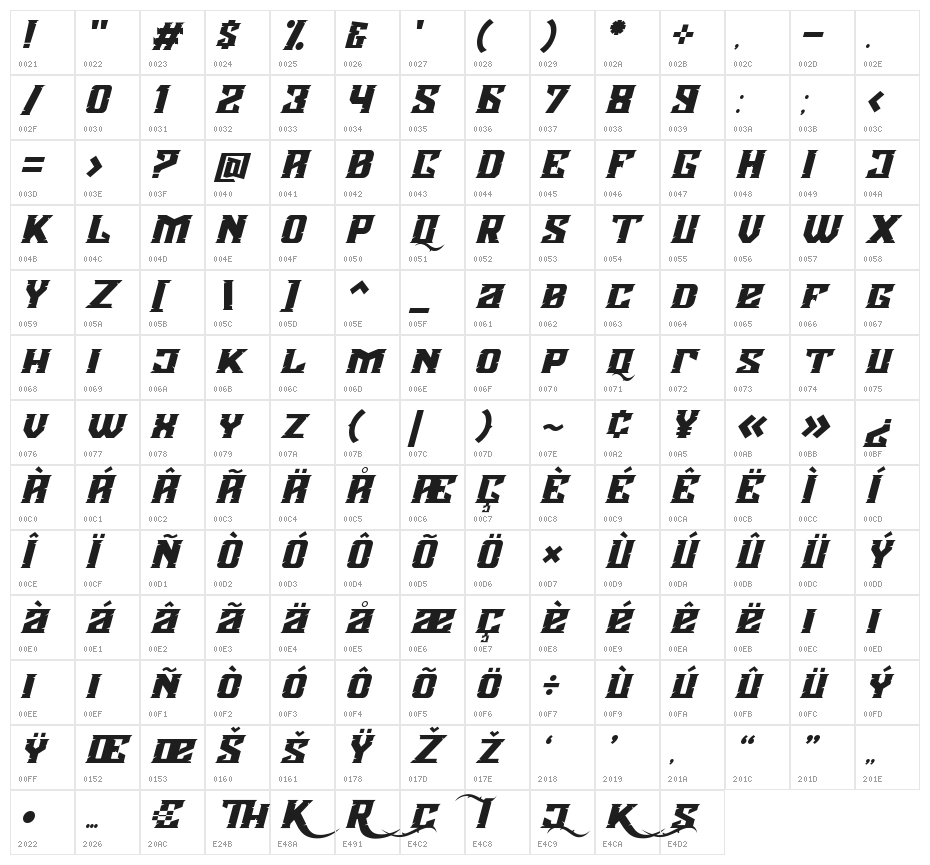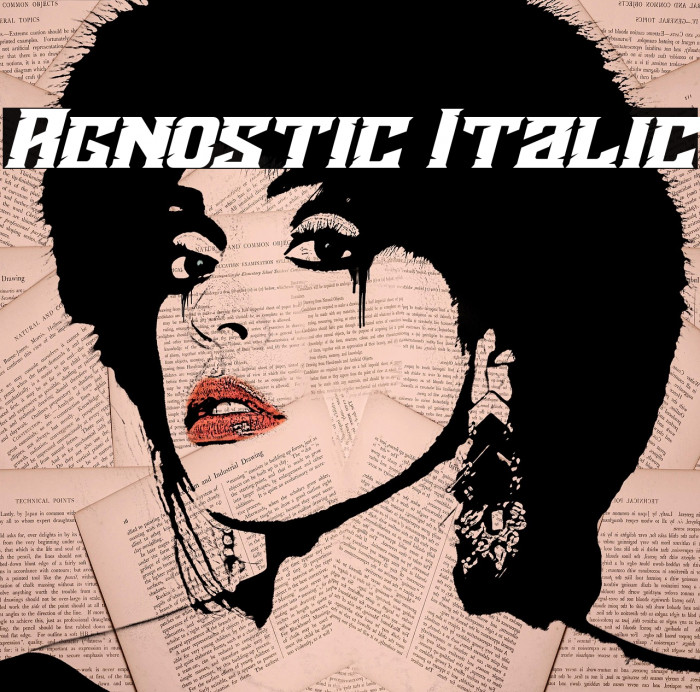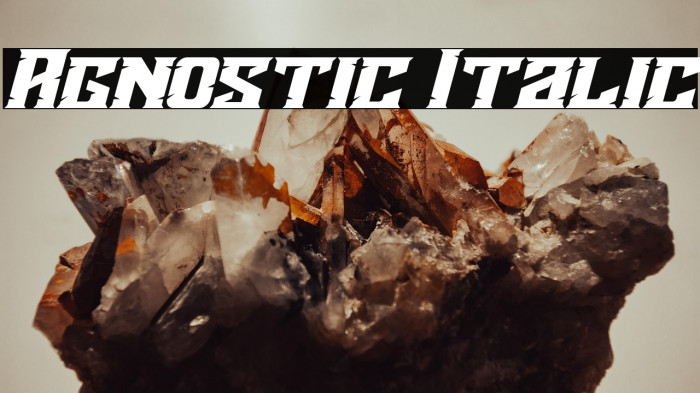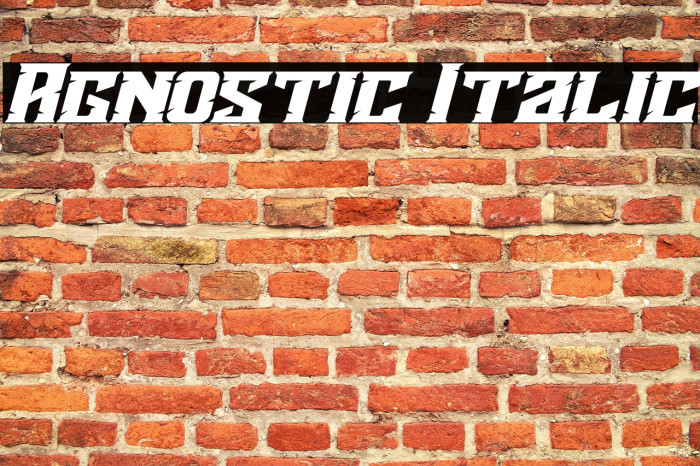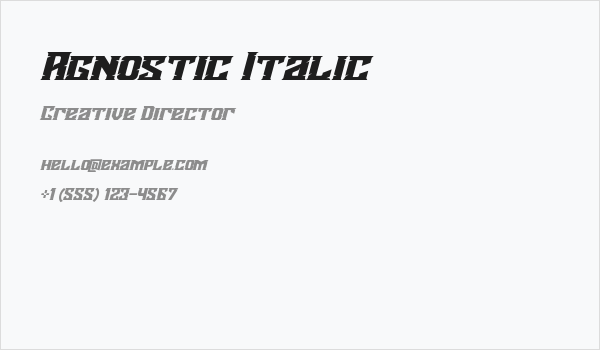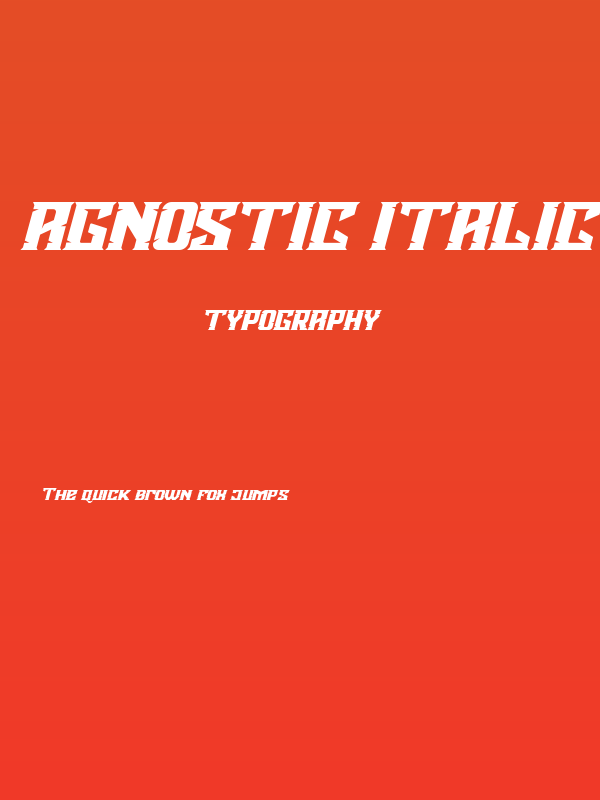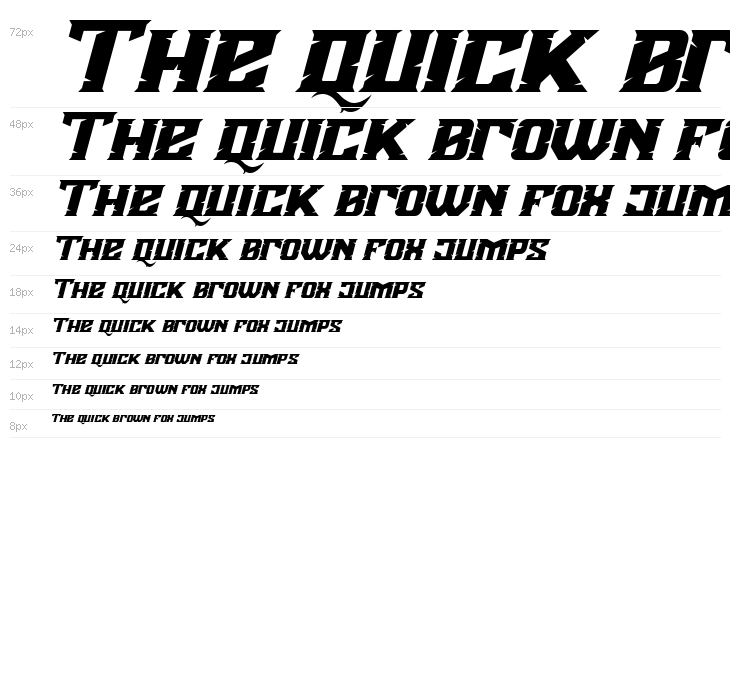
Agnostic Italic Font
Agnostic Italic Description
This font features a bold and dynamic design with sharp, angular edges and a distinct italic slant. The characters are heavily stylized, creating a sense of movement and energy. The uppercase and lowercase letters maintain a consistent style, with exaggerated serifs and a strong presence. The numbers and special characters follow the same bold and angular theme, ensuring uniformity across the typeface. This font is ideal for projects that require a striking and impactful visual statement.